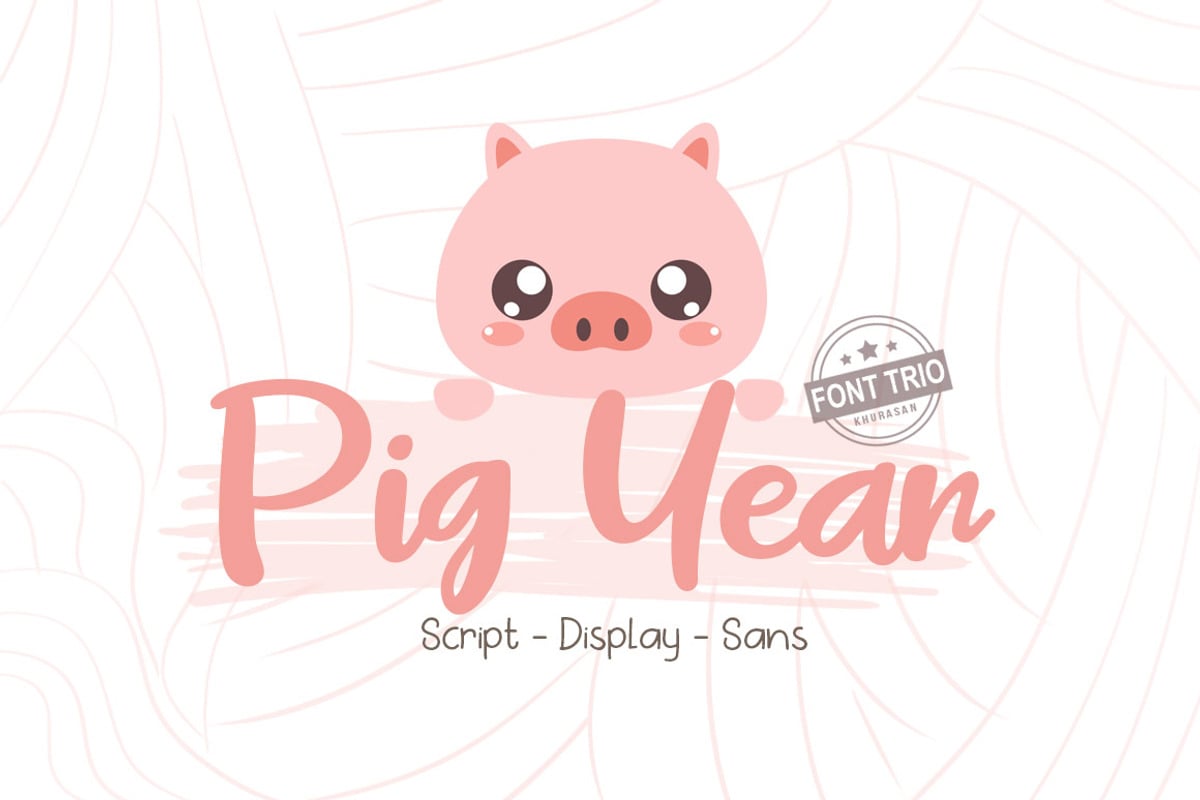
Pig Year 3 Font
Discover Pig Year Font - a delightful trio typeface combining script, display, and sans serif styles for endless creative possibilities. This fun and fresh typography collection features a modern aesthetic with three distinct styles that work beautifully together or standalone. Mix and match the script, display, and sans versions to create amazing visual combinations that capture attention. Perfect for logo design, branding projects, greeting cards, posters, and any creative design that needs a ...